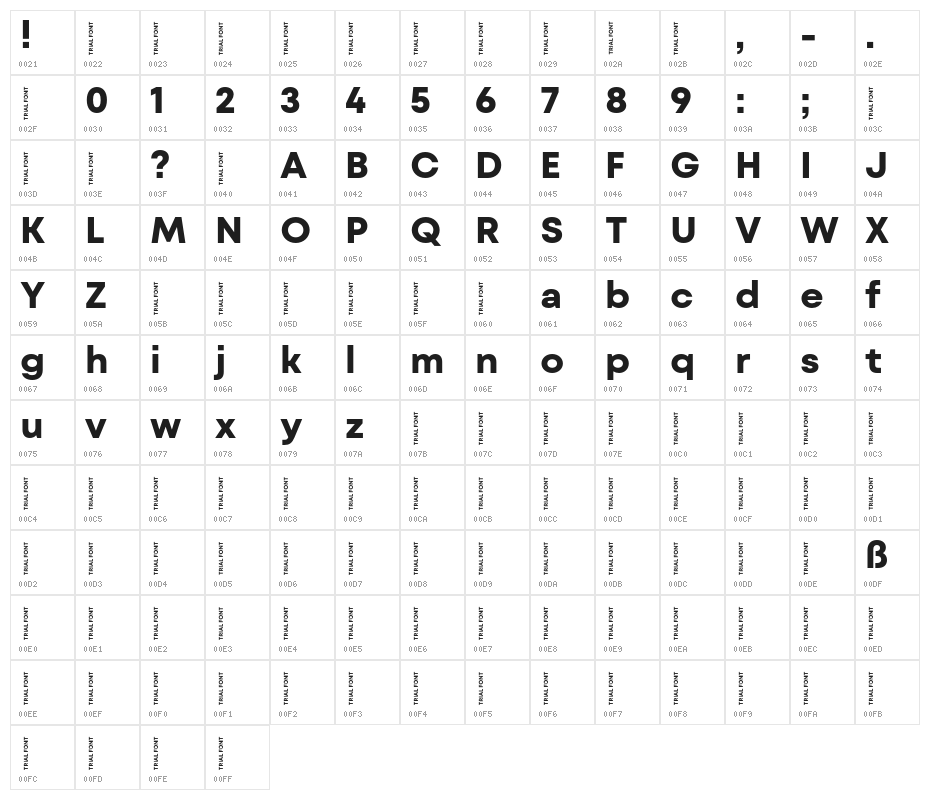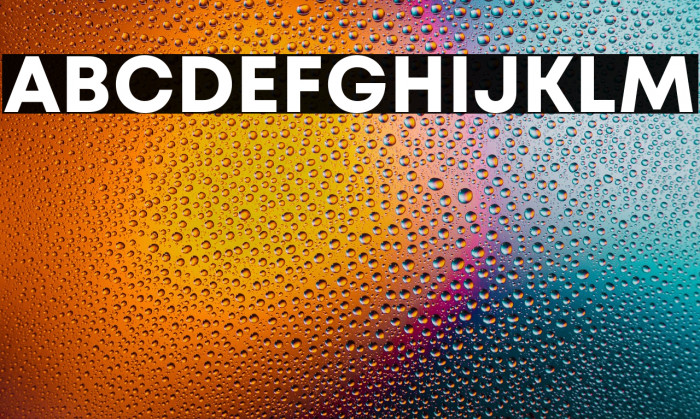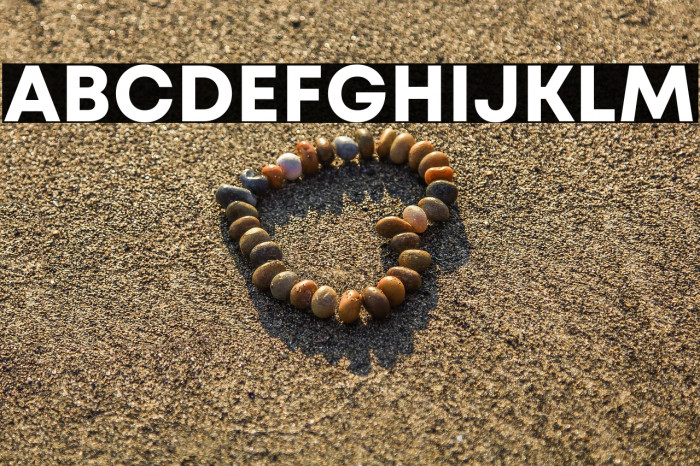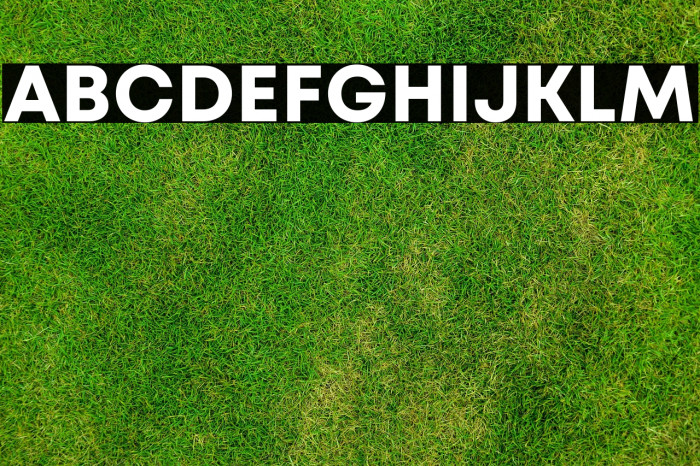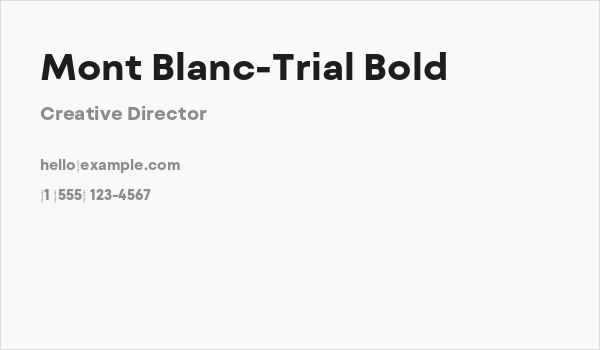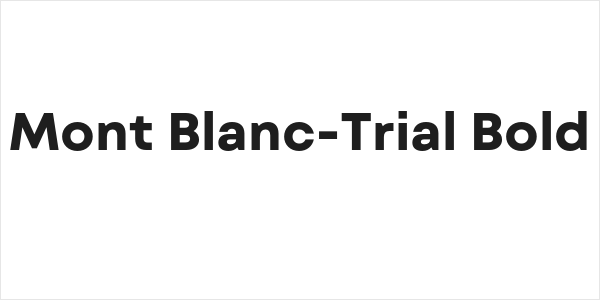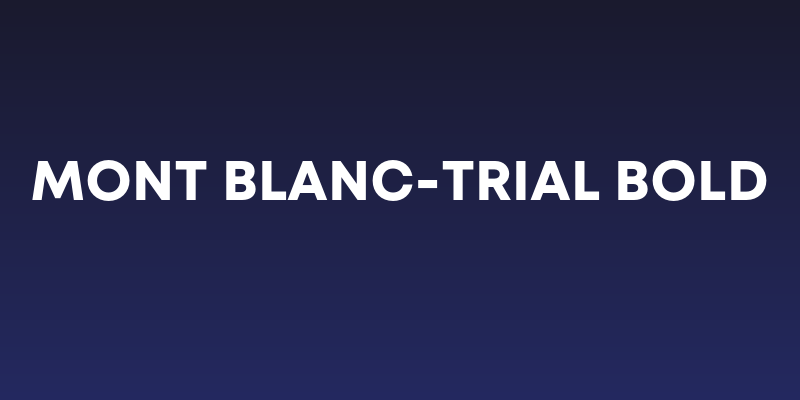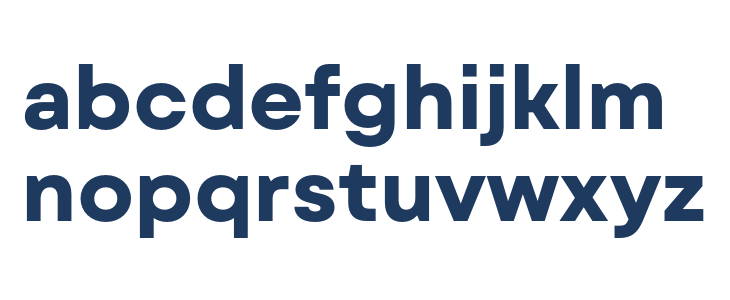
Mont Blanc-Trial Bold Font
Mont Blanc-Trial Bold Description
This font features a bold and modern sans-serif style with clean, geometric lines and uniform stroke widths. The uppercase and lowercase letters are well-proportioned, offering a strong visual impact. The numerals are clear and easy to read, making them suitable for various applications. The special characters maintain the same boldness and clarity, ensuring consistency across all glyphs. Its simplicity and boldness make it versatile for both digital and print media.